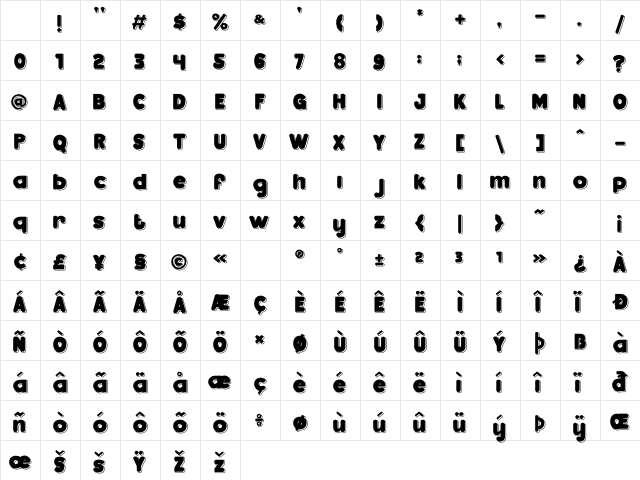
Complete Bloksy Three Regular glyph index. Displaying only characters natively supported by Bloksy Three Regular font.
Bloksy Three is a composed and adaptable typeface that performs quietly and consistently across a wide range of design contexts.